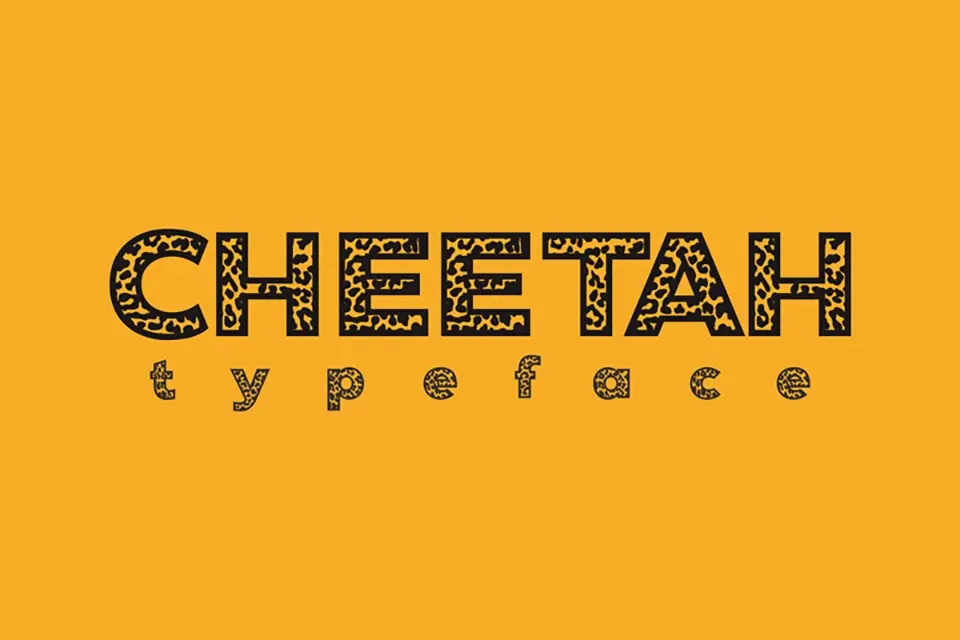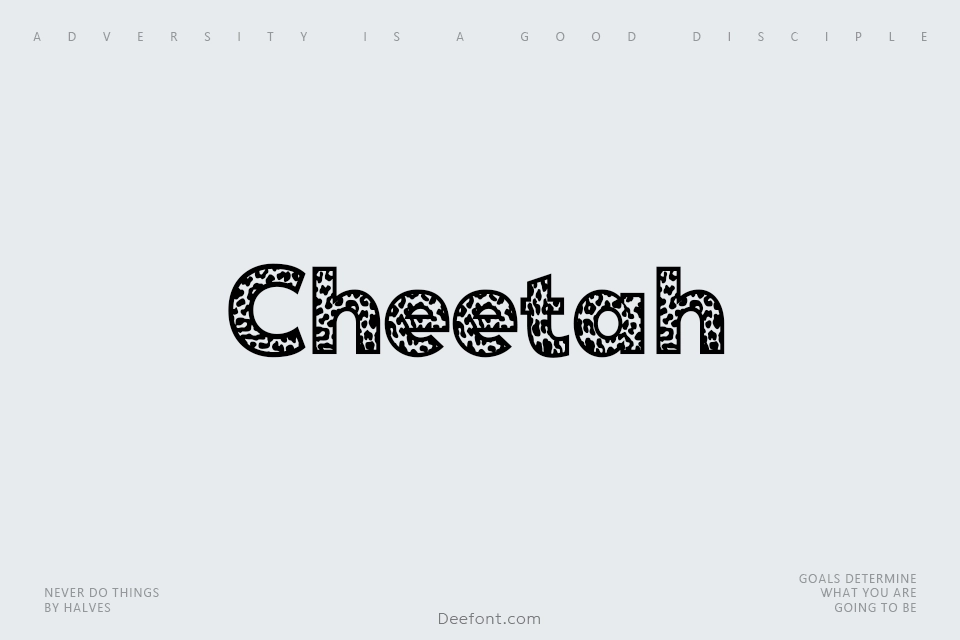
Cheetah Font
Cheetah is a wild and stylish decorative display font inspired by the swift elegance of the cheetah. Featuring bold animal print patterns within its characters, it brings fierce, untamed energy to any design project. Perfect for fashion-forward posters, adventurous branding, and creative typography, Cheetah captures the spirit of the animal kingdom with exotic flair and dynamic visual movement, making it ideal for bold headlines and eye-catching designs.